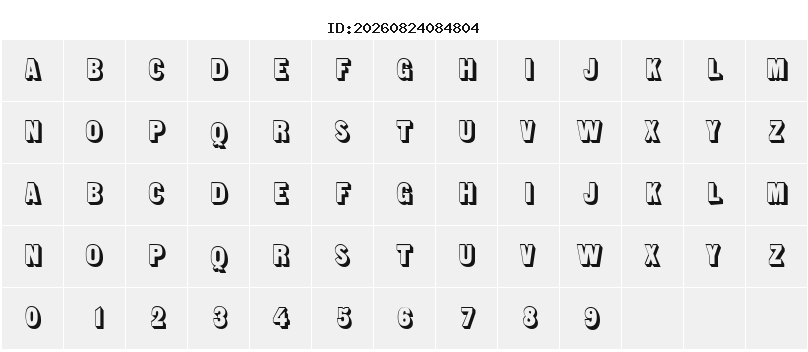
SandersonShaded Preview
• Font Name: SandersonShaded
• Full Font Name: SandersonShaded
• PostScript Name: SandersonShaded
About SandersonShaded.ttf
SandersonShaded.ttf is a modern, elegant sans-serif font designed for ultimate readability and visual harmony. Perfect for branding, headlines, web design, and print materials.